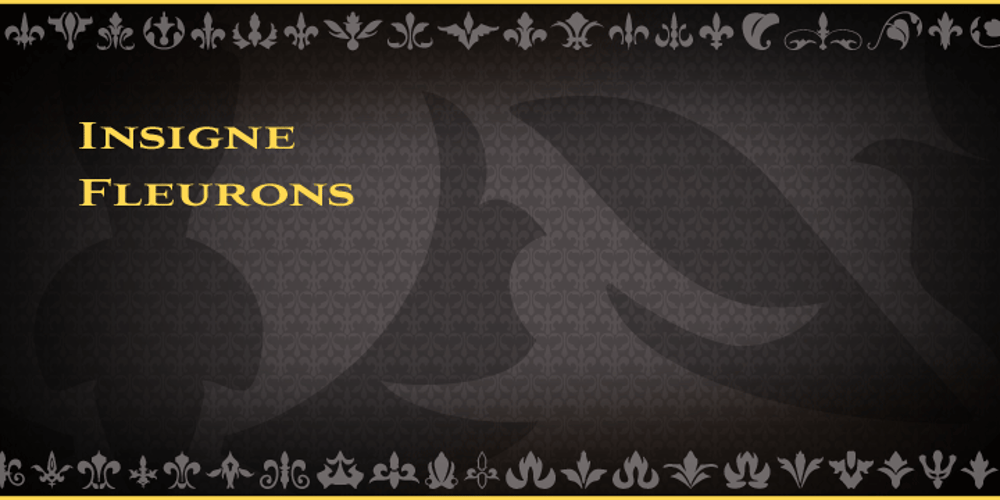
Insigne Fleurons Font Family was designed by Jeremy Dooley and published by insigne. Insigne Fleurons contains 1 styles and family package options. Insigne Fleurons offers a wide range of diverse text ornaments to enhance your designs. These 52 ornaments can be used as components of a logo, background patterns or elements, border patterns or to add flourishes and refinement to your designs. Insigne Fleurons can be resized and rotated easily without any loss of quality and can easily be converted to outlines and modified. Combine them to form unique compositions or insert them into text to draw attention. Please see the sample .pdf to see all 52 ornaments in action.